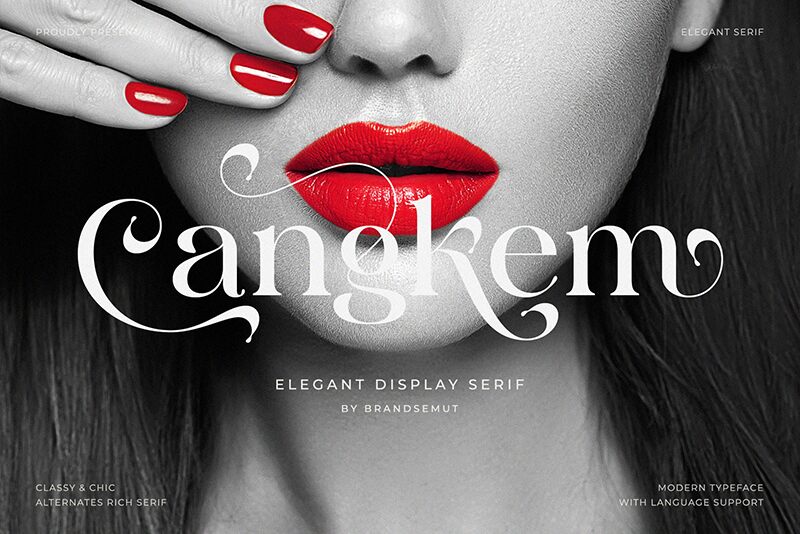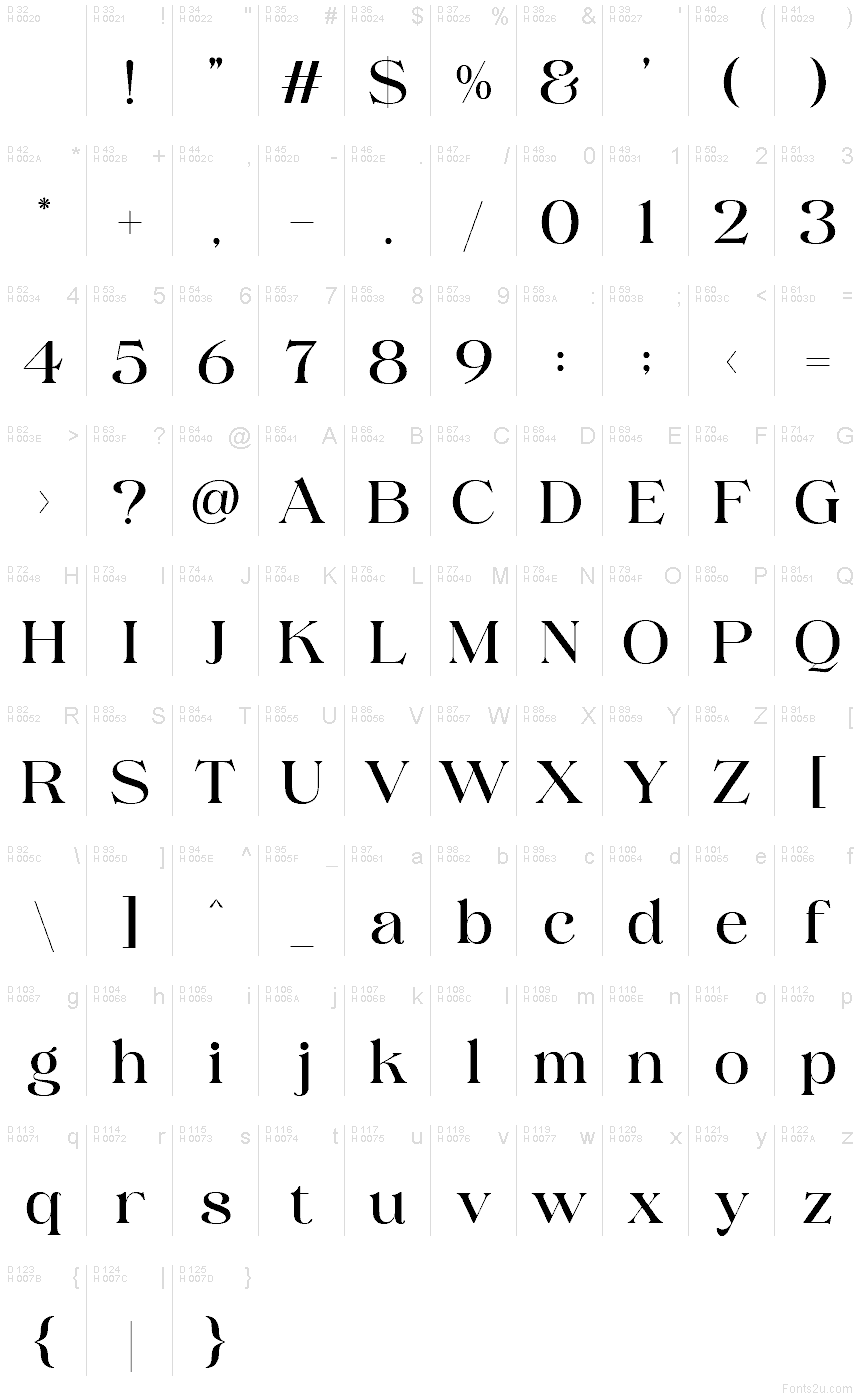
Cangkem font by BrandSemut is a free serif typeface that brings a polished, editorial edge to your layouts. Its tall, slender forms, razor-fine strokes, and slightly compressed curves feel like ink drawn with a careful, confident hand. Letters sit close with a refined tension, giving headlines a chic, fashion-magazine attitude while still reading cleanly at medium sizes.
Using Cangkem in your work instantly adds a luxurious, modern classic mood that shines on branding, magazine covers, beauty packaging, posters, invitations, and hero website typography. This free font thrives in generous white space, where its thin details can breathe. Pair Cangkem with a simple geometric sans for supporting text, and let the serif carry names, titles, and short phrases that need to feel sharp and unmistakably premium.